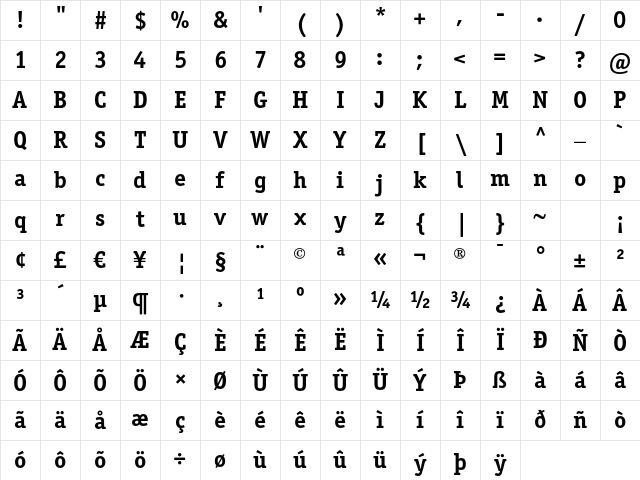
Complete ITC Officina Serif LT Bold glyph index. Displaying only characters natively supported by ITC Officina Serif LT Bold font.
ITC Officina Serif LT carries the refined structure of traditional serif typography, with bracketed terminals and considered proportions that communicate credibility and craft. Its bold stroke weight gives it real presence on the page.